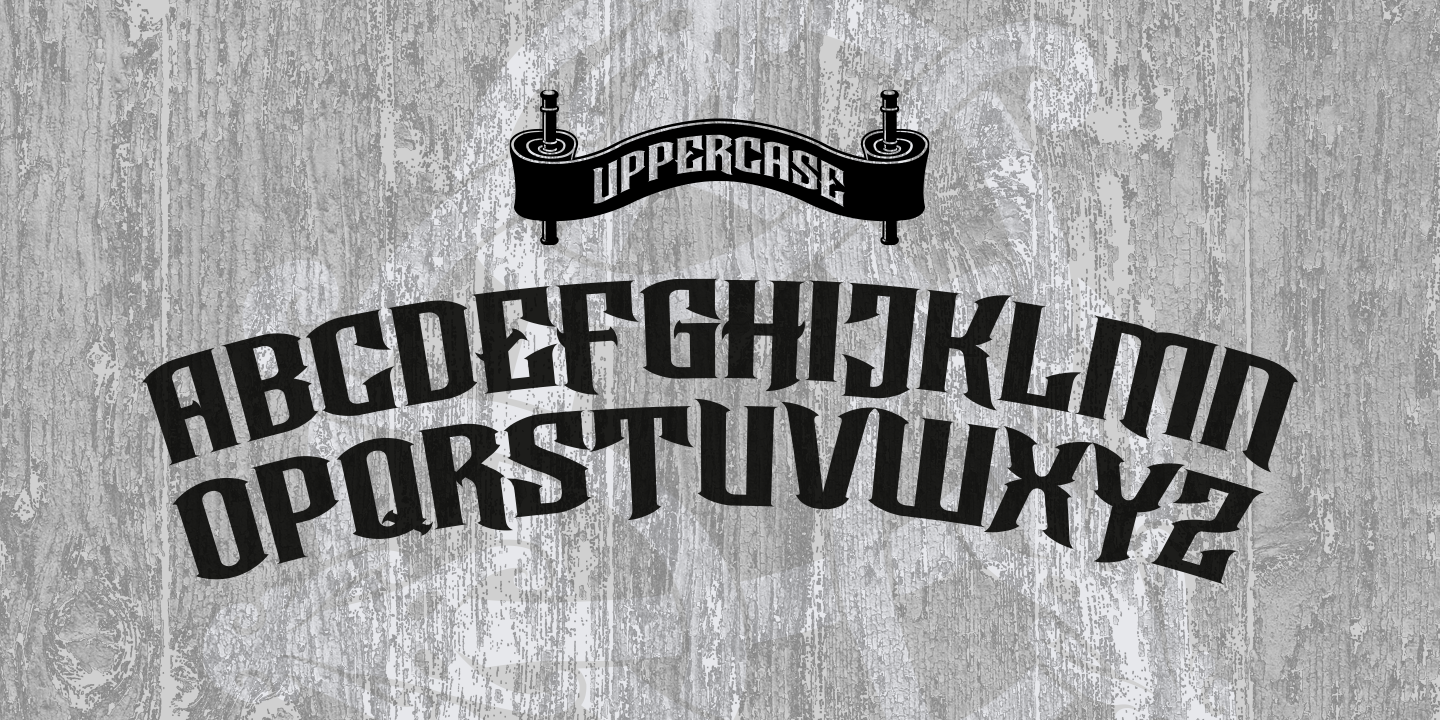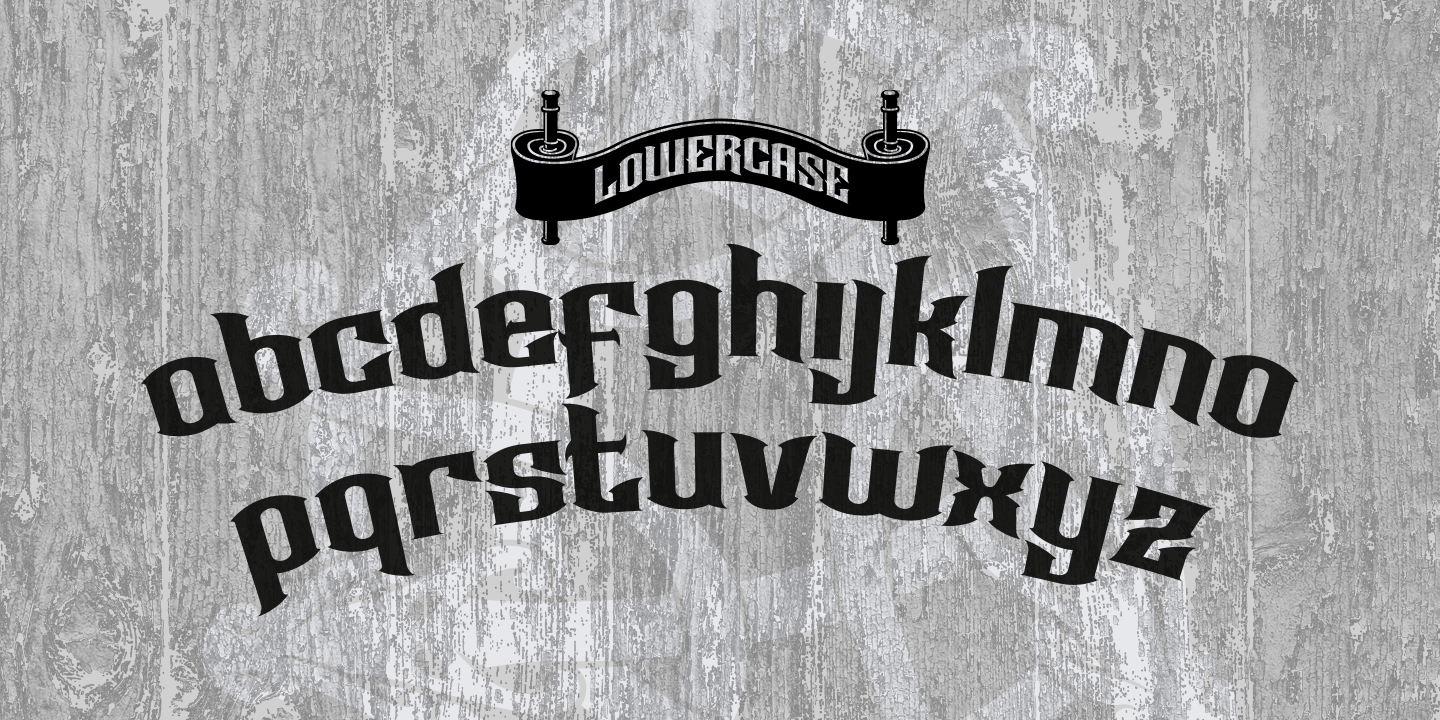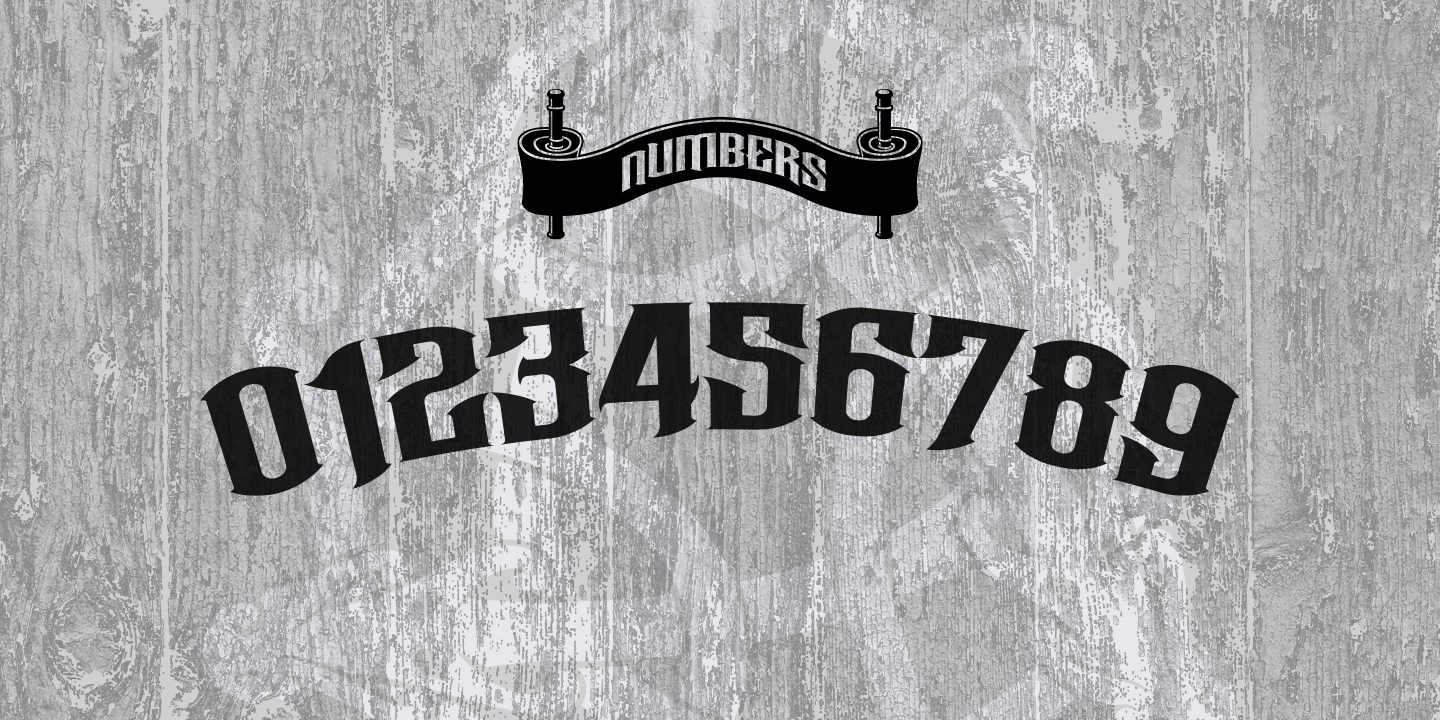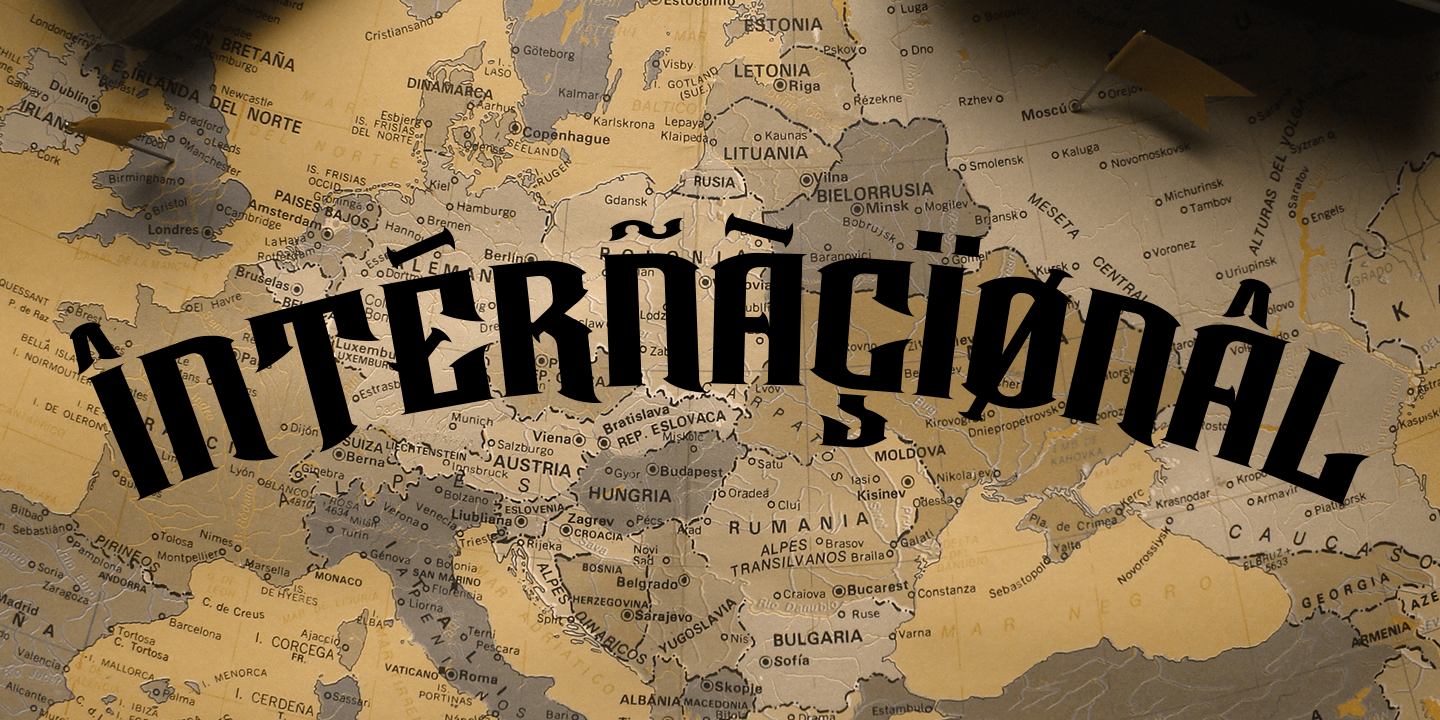
Forged to be as imposing as a Norse horde ready to stampede into battle, Works great in all caps which it was initially designed to. I designed the lowercase characters to match really well with each other and the uppercase, so it works well in title case. Plus it has a great set of looking numbers and loads of extras.